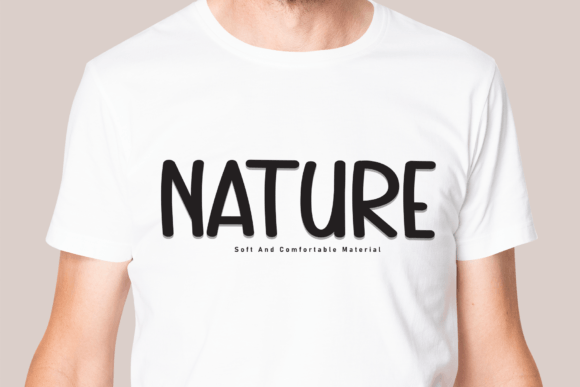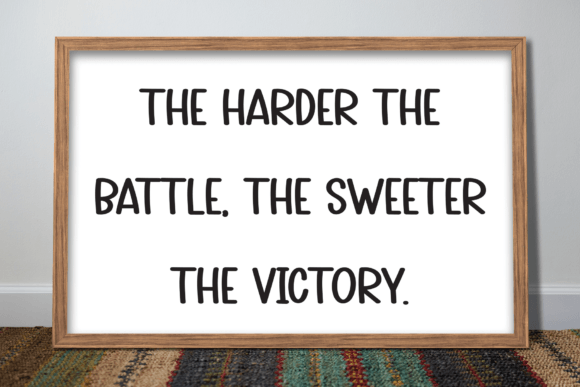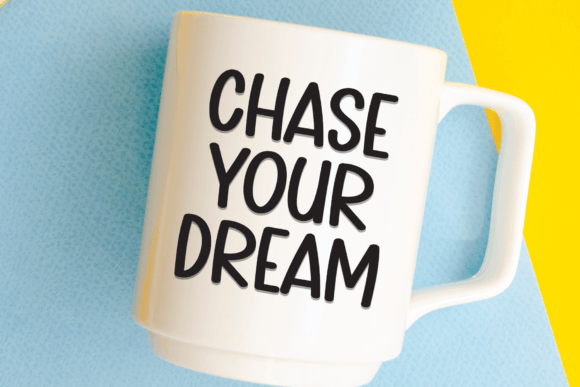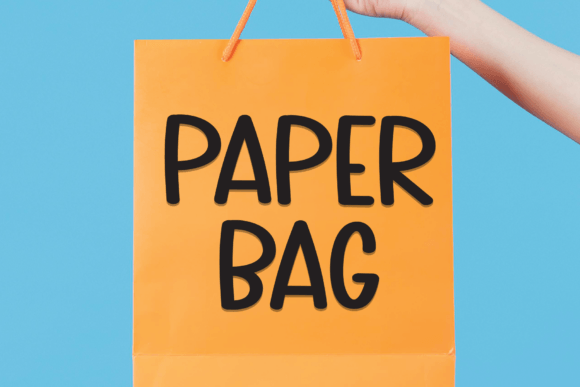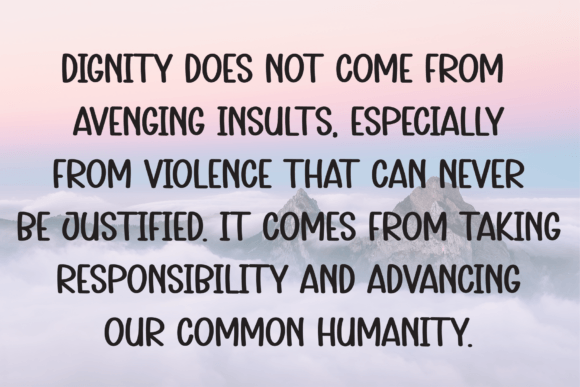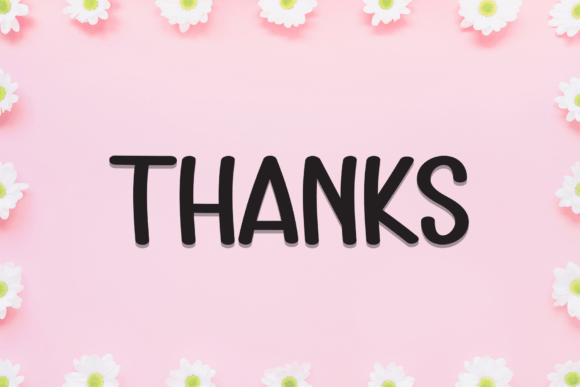
Introduction to Pink Cute Font
Immerse yourself in the charming allure of a darling and approachable handwritten display font.
Warmly inviting, this font captures the heart at first glance, making it the perfect choice for crafting wedding invitations, greeting cards, or any design project that calls for an engaging, spirited touch Infuse your work with a delightful swirl of personality, courtesy of this uniquely adorable handwritten font.